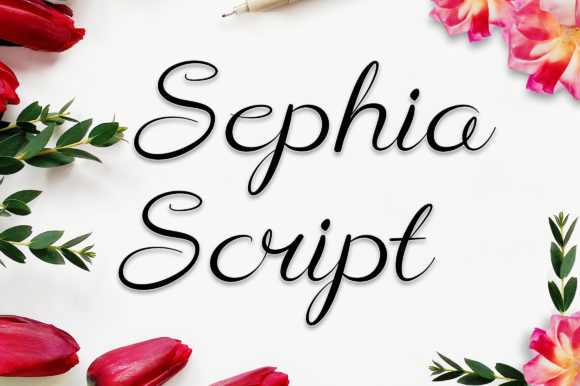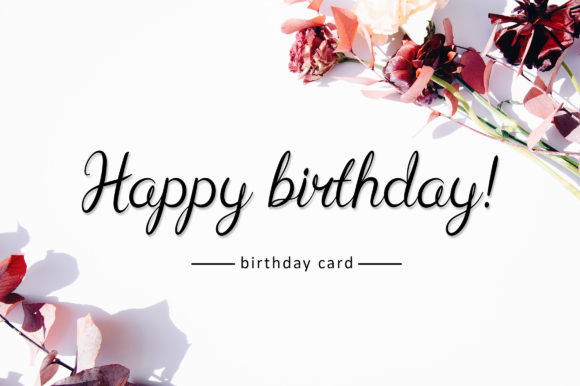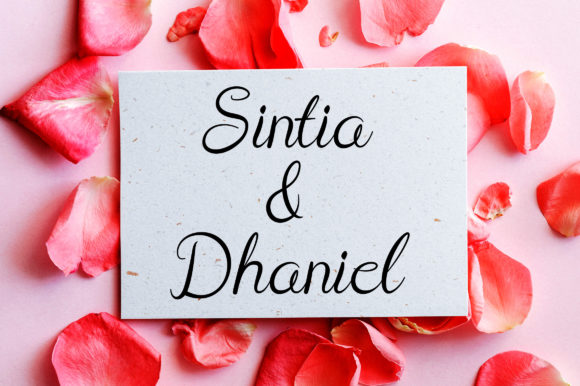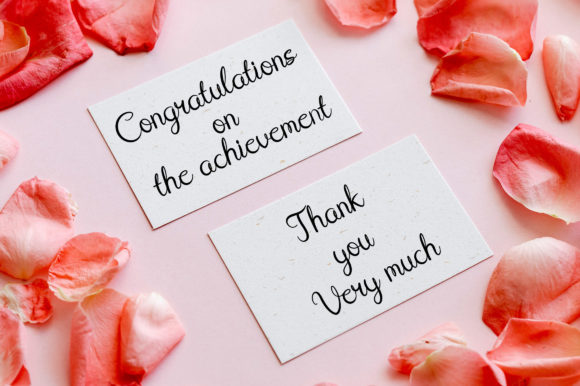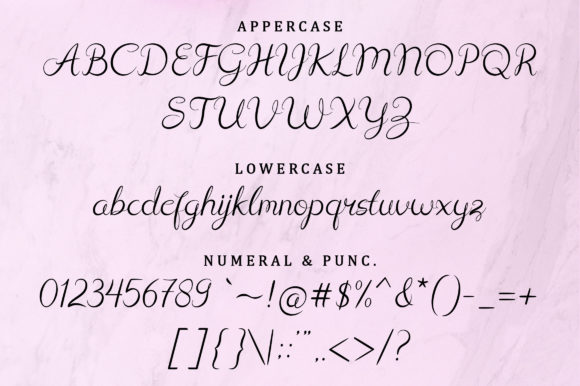
About Sephia Script Font
Sephia Script is an elegant script font with a contemporary feel. This stylish and classic font will make your work look elegant and attractive. You can use it to make your product. Add this font to your most creative ideas, and watch how it stands out!